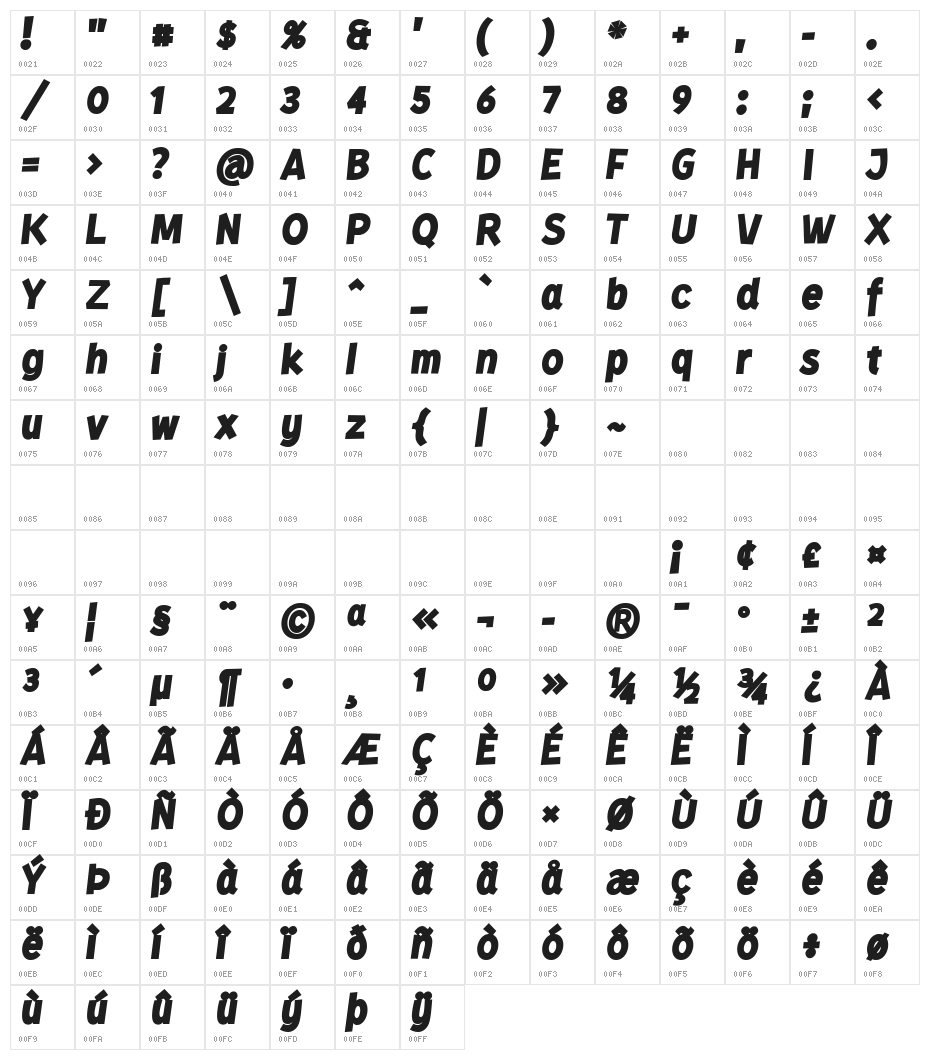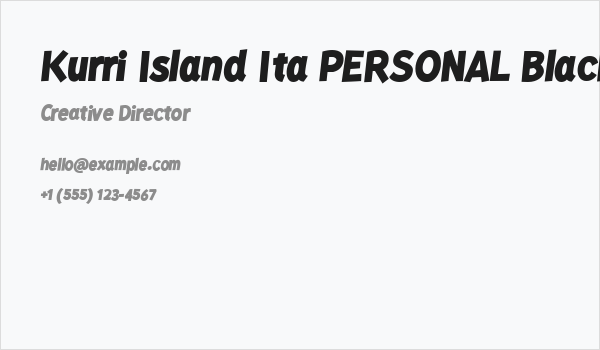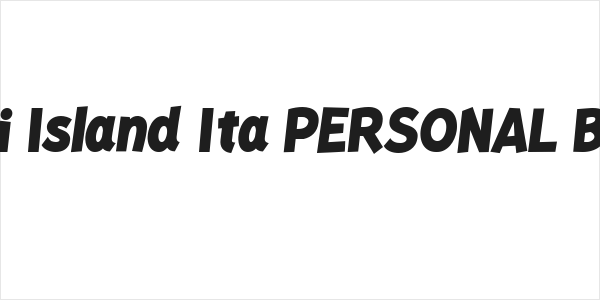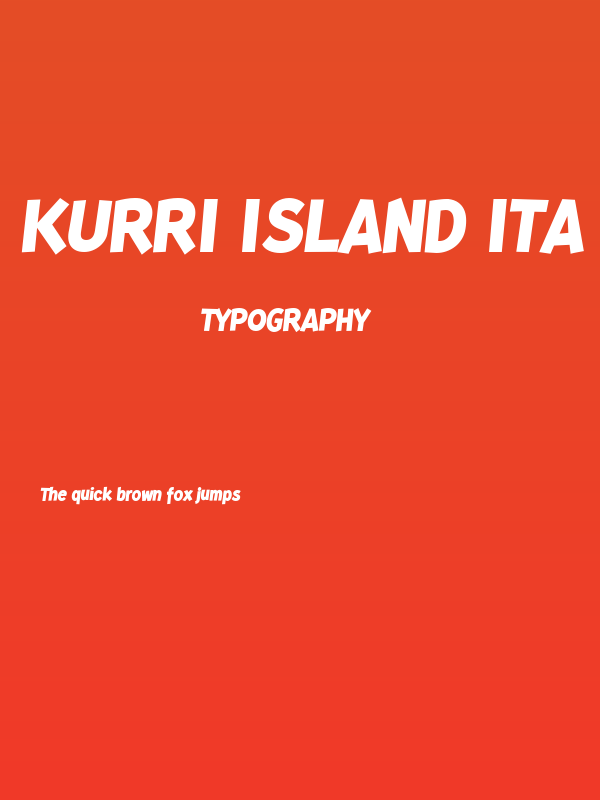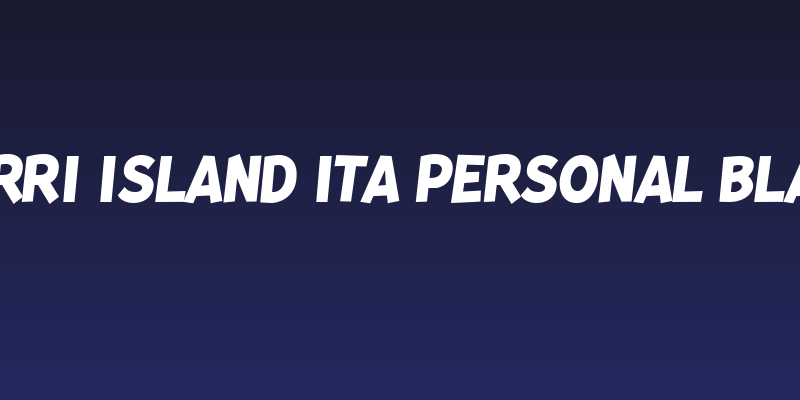
Kurri Island Ita PERSONAL Black Font
Kurri Island Ita PERSONAL Black Description
This font features a bold and dynamic style with a strong presence. The characters are slightly italicized, giving them a forward-leaning, energetic appearance. The strokes are thick and consistent, contributing to a high contrast between the characters and the background. The overall design is modern and impactful, making it suitable for attention-grabbing headlines or logos. The uppercase and lowercase letters maintain a uniform width, while the numerals and special characters are designed to complement the alphabet with similar boldness and style.
| Proposed Projects | Ideal for branding, advertising, posters, and any project requiring a strong visual impact. |